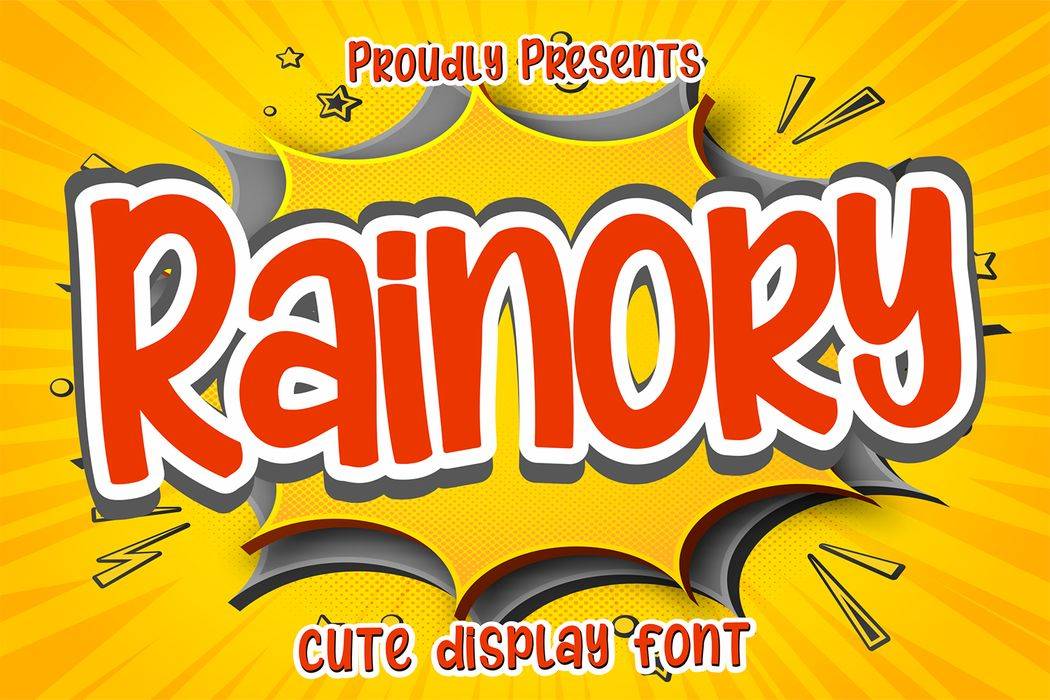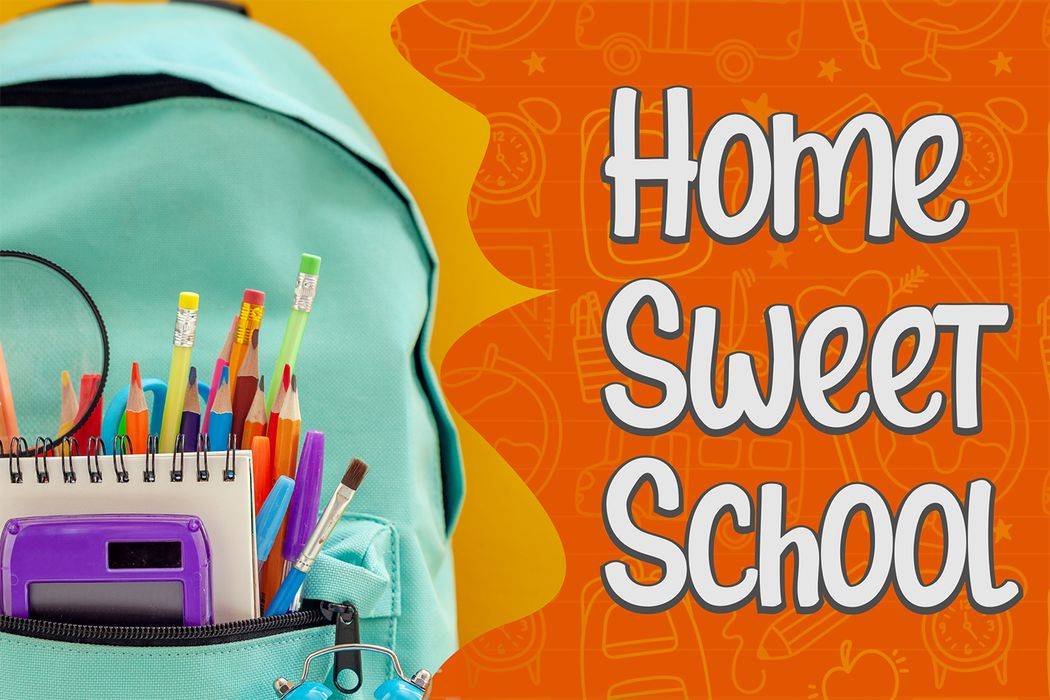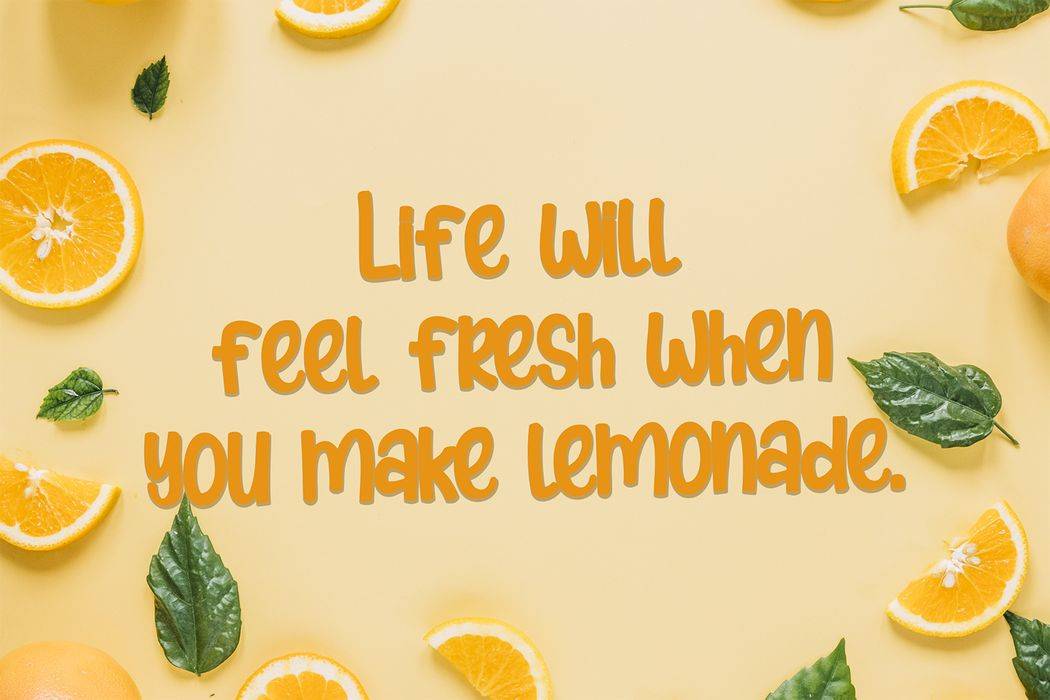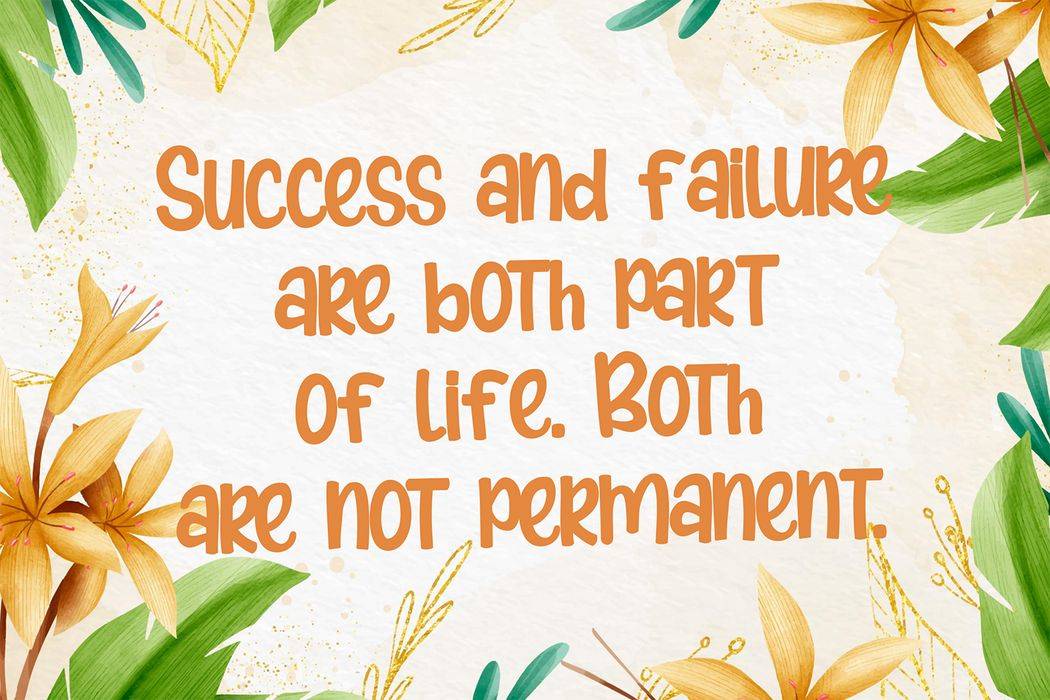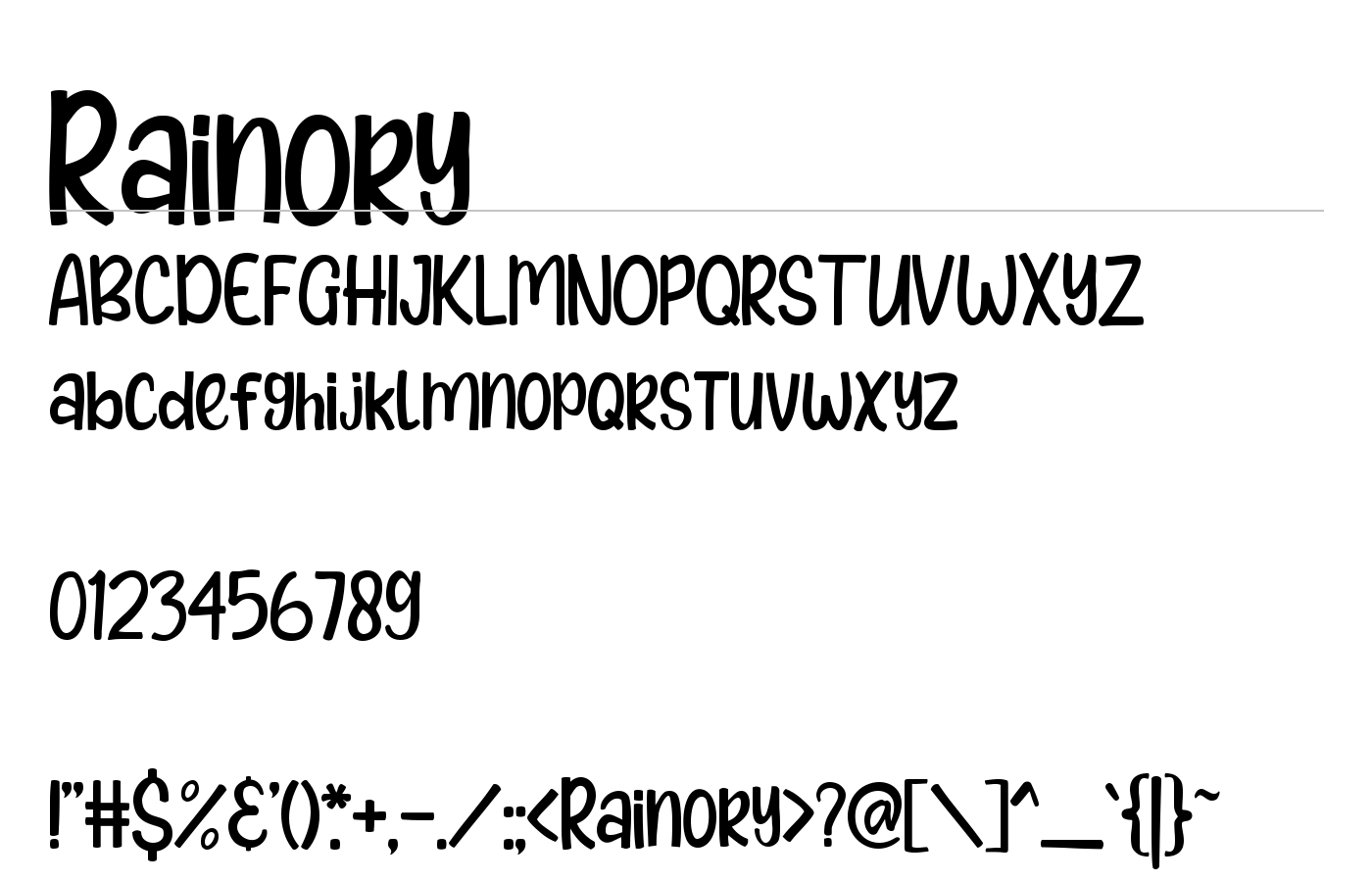
Rainory is a playful handwritten sans serif font with a casual, friendly feel. Its tall, slightly condensed letters and consistent stroke width give it an approachable and youthful personality, making it ideal for creative projects, children’s materials, or informal branding. This font works well in headlines, logos, and packaging where a fun and relaxed tone is desired.
Rainory Font
About Rainory Font
| Font family | Rainory Font |
| Designer | Pandanwangi2020 |